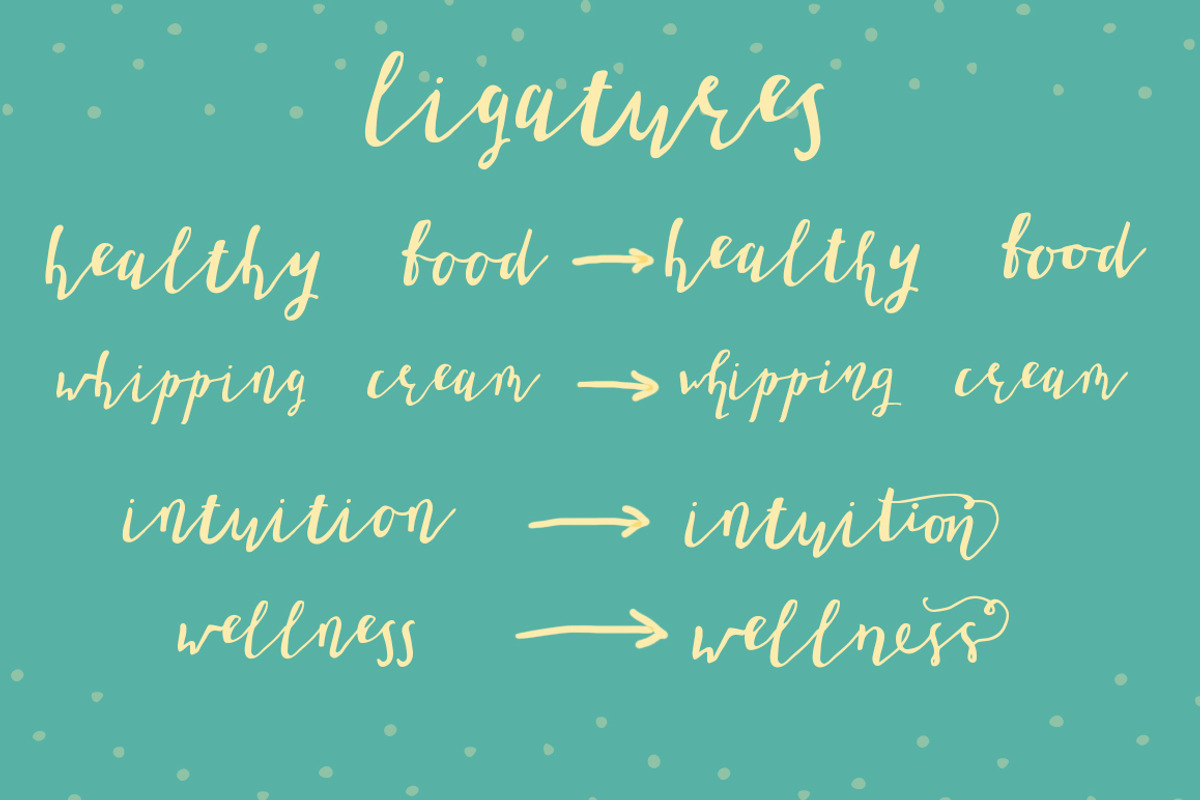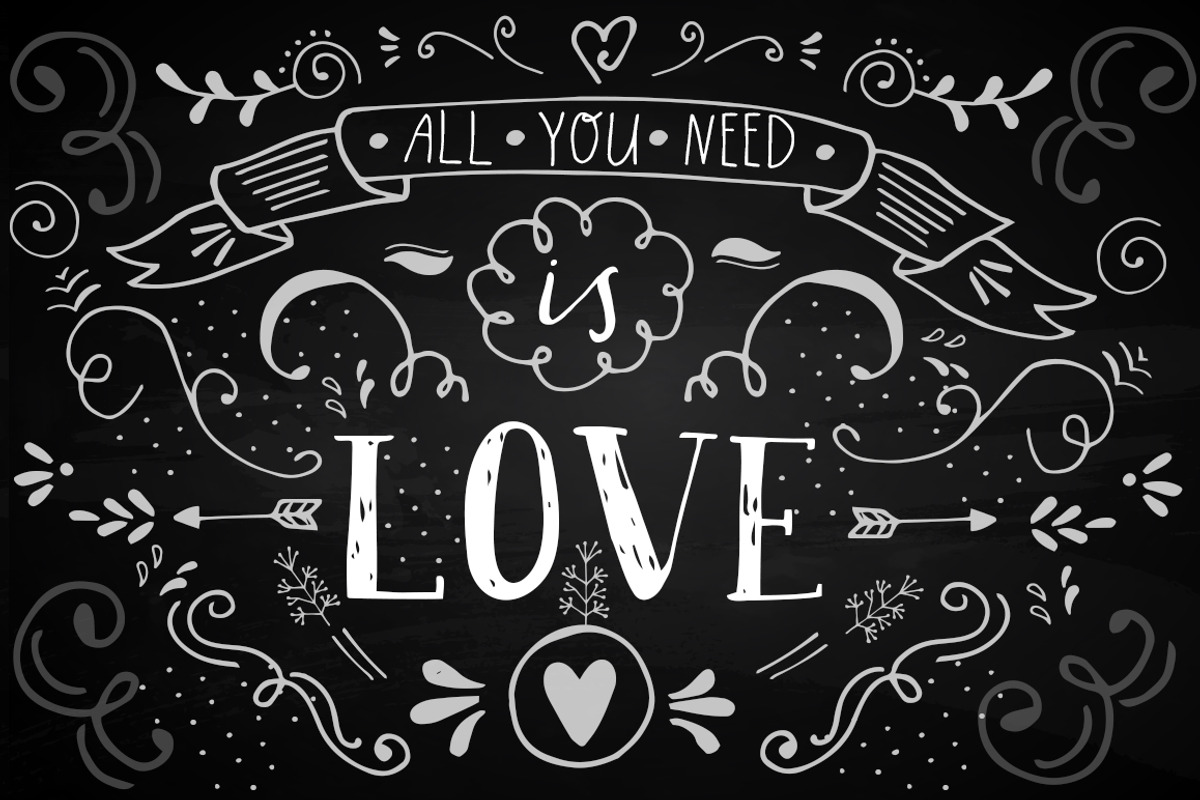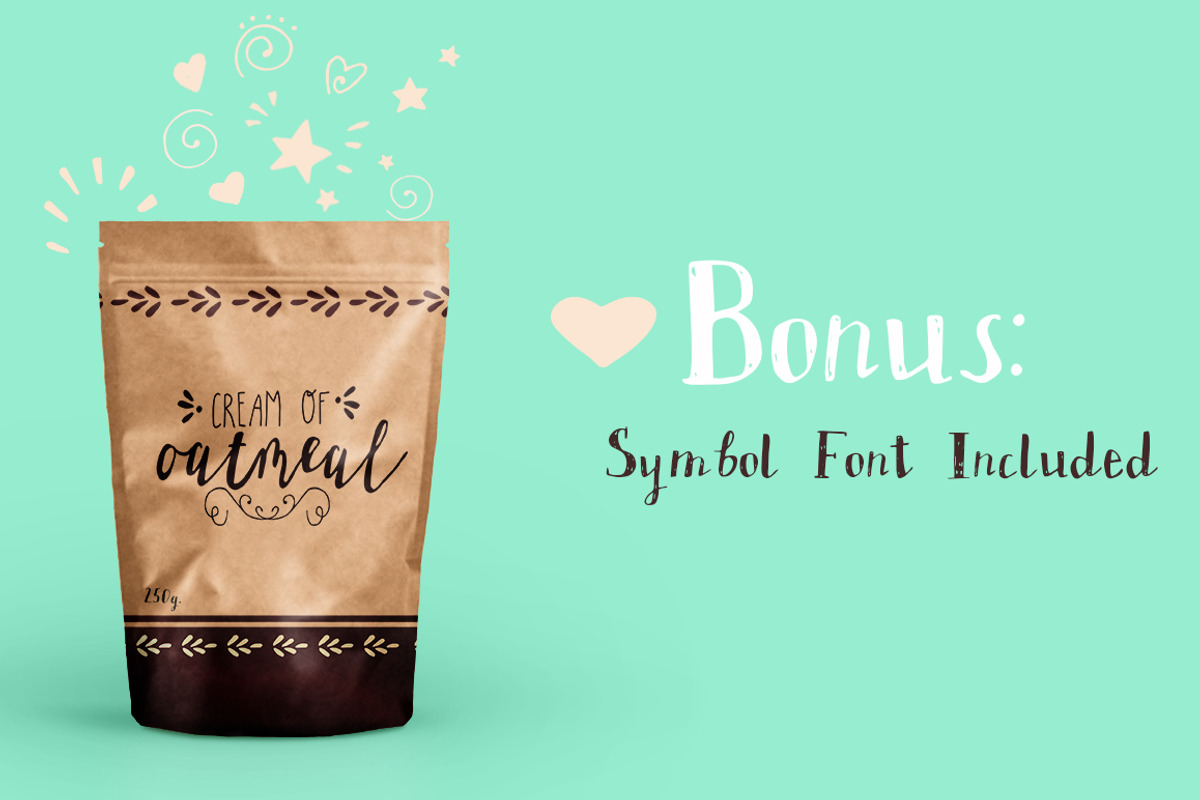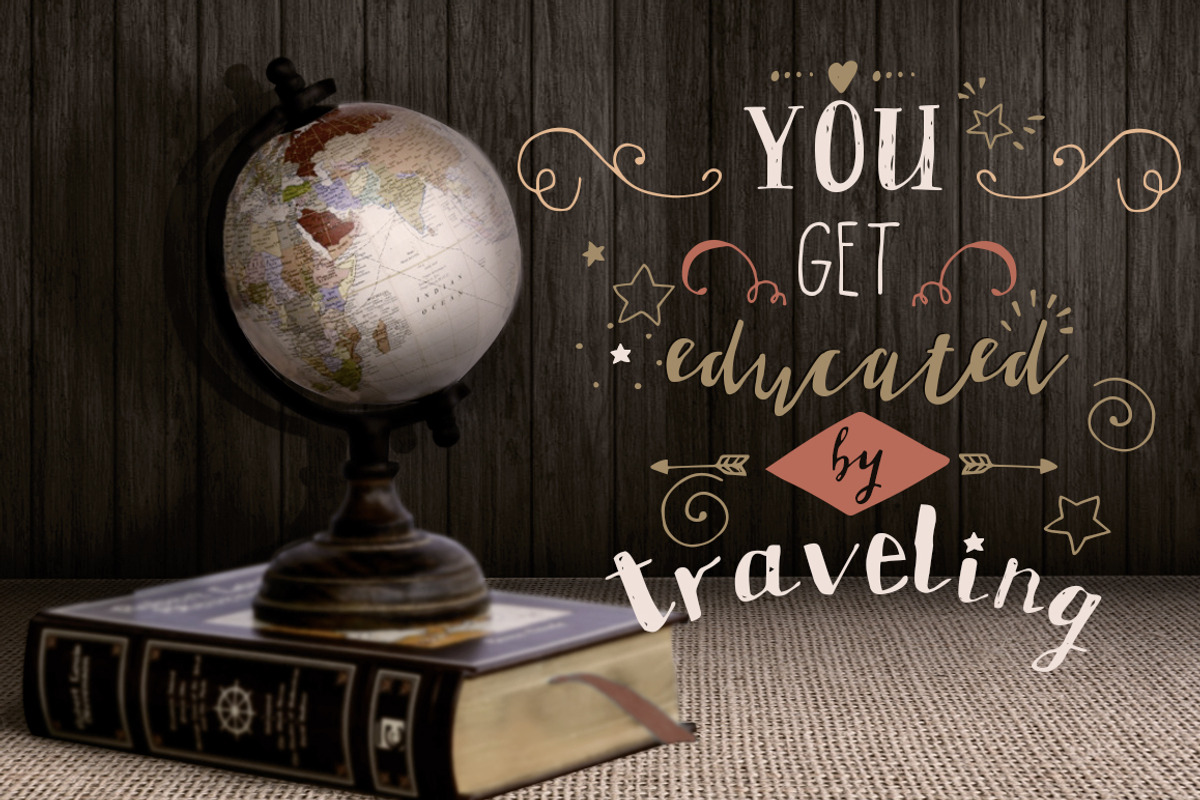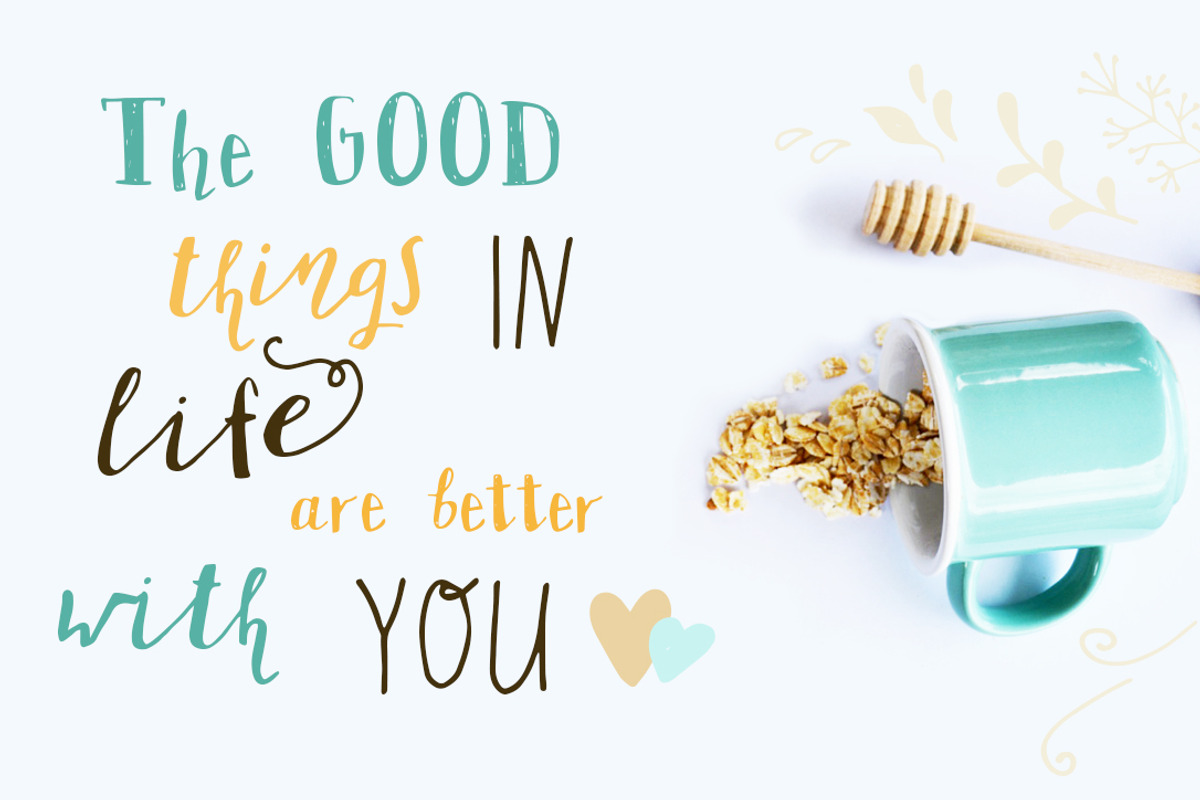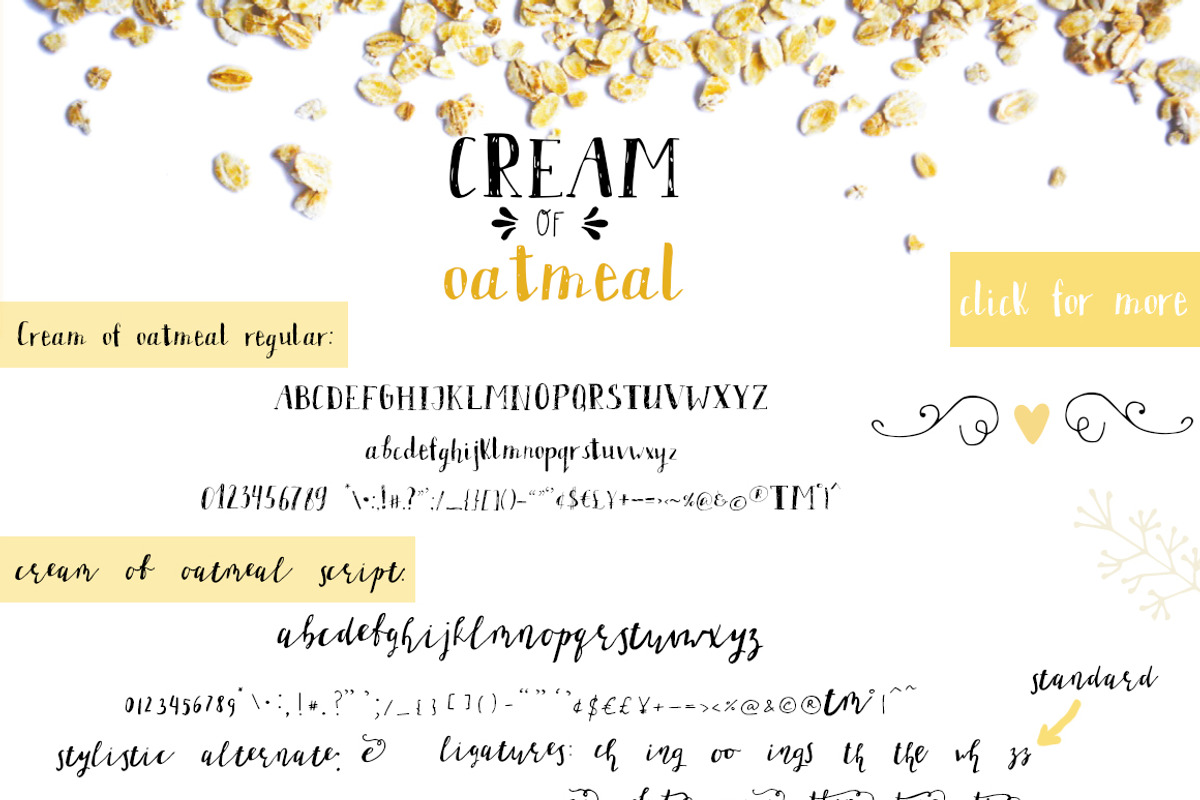
Cream of oatmeal font trio
Introducing Cream Of Oatmeal font Trio! 100% Hand lettered font Trio with lots of personality.
Handwritten Font Perfect for greeting cards, branding, social media, packaging, prints and more.
- CreamOfOatmeal Regular
- CreamOfOatmeal Monoline
- CreamOfOatmeal Script
- CreamOfOatmeal Symbol
Why Cream of oatmeal font trio is worth a look
Cream of oatmeal font trio by Maria Zebroff fits naturally into Branding, posters, packaging, typography.